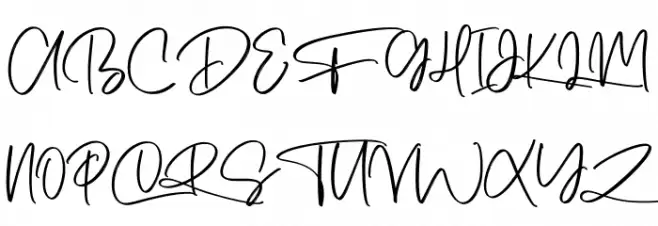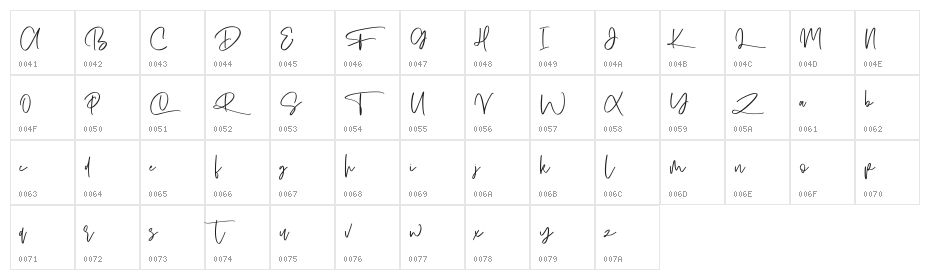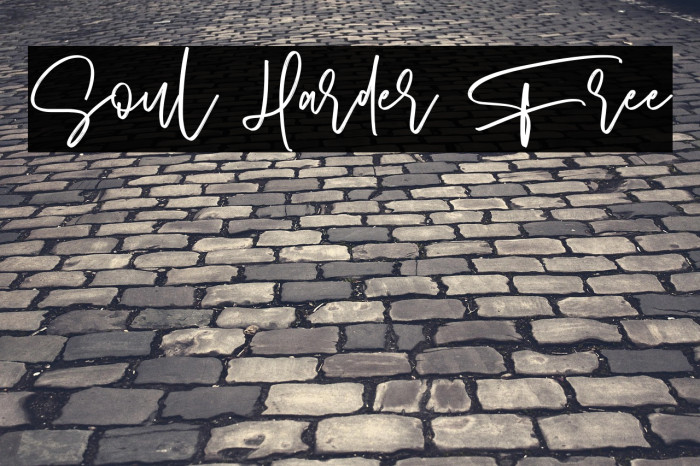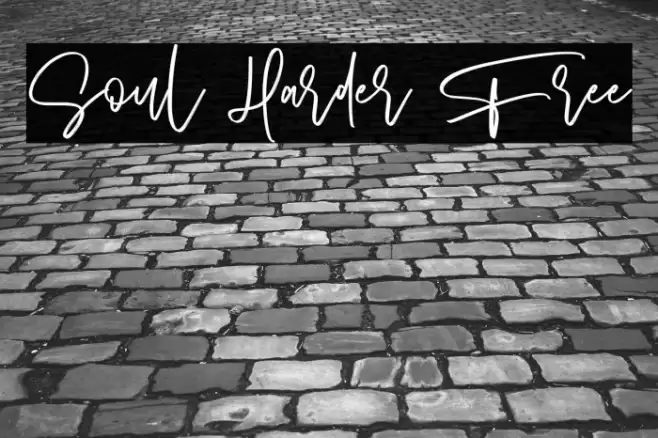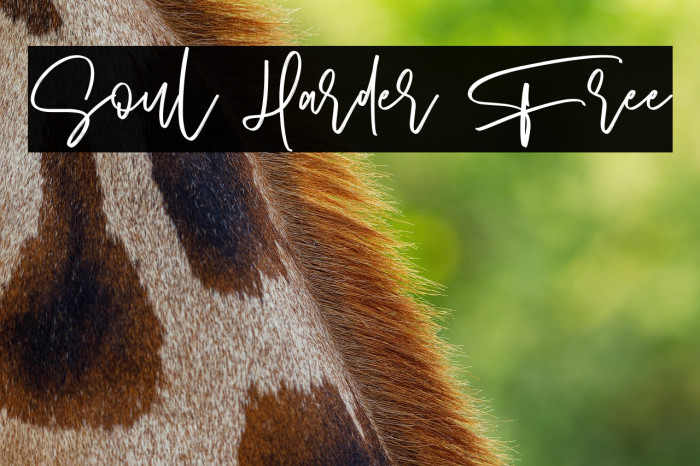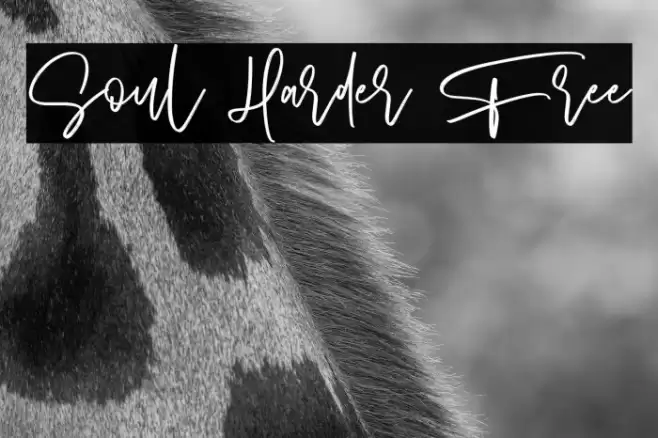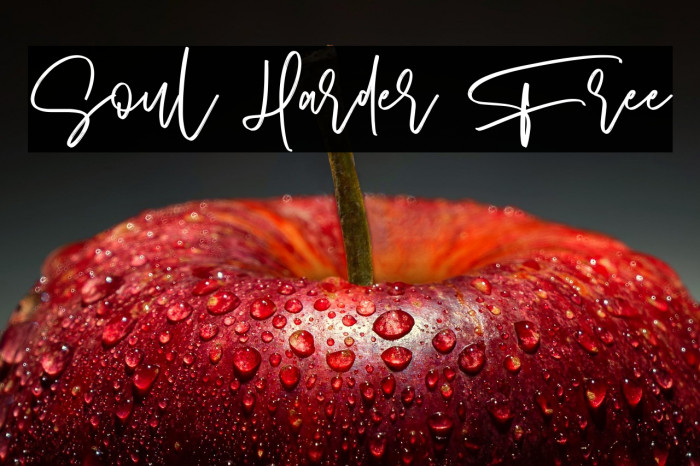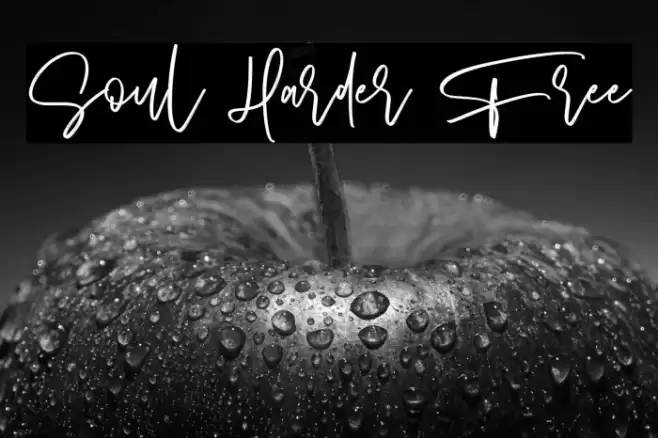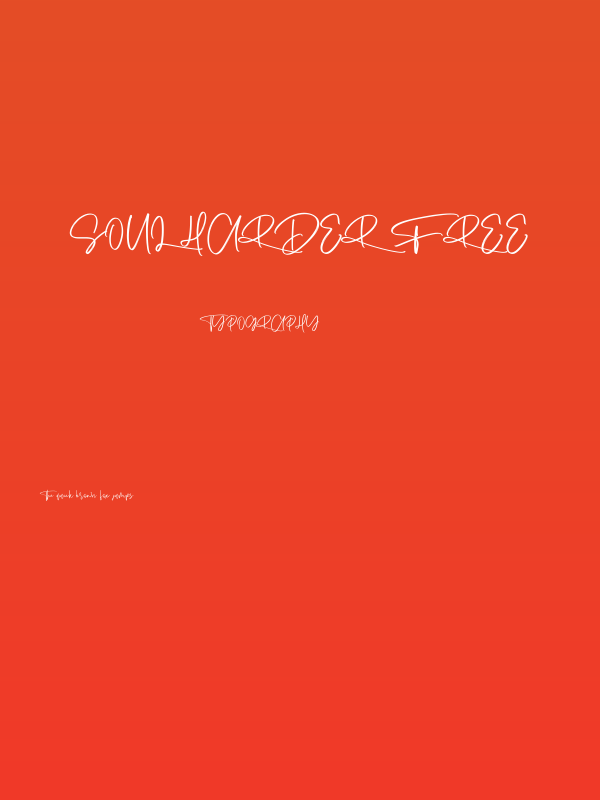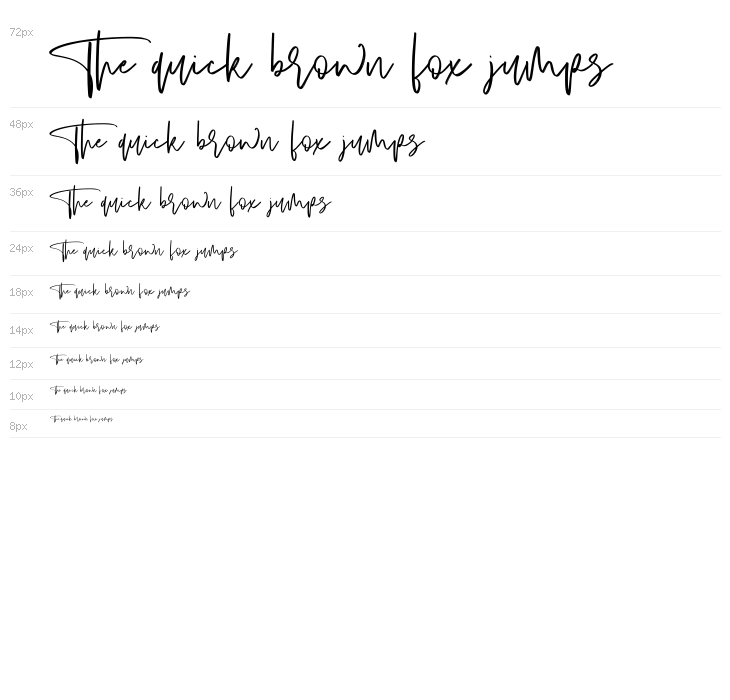
Soul Harder Free Font
Soul Harder Free Description
This font features a dynamic and expressive handwritten style, characterized by fluid strokes and a casual, artistic flair. The uppercase letters are bold and sweeping, with a sense of movement and individuality in each character. The lowercase letters maintain a consistent flow, with a slightly more restrained appearance compared to the uppercase. The numbers and special characters are integrated seamlessly, maintaining the overall aesthetic. This font's unique style is perfect for creative projects that require a personal touch.